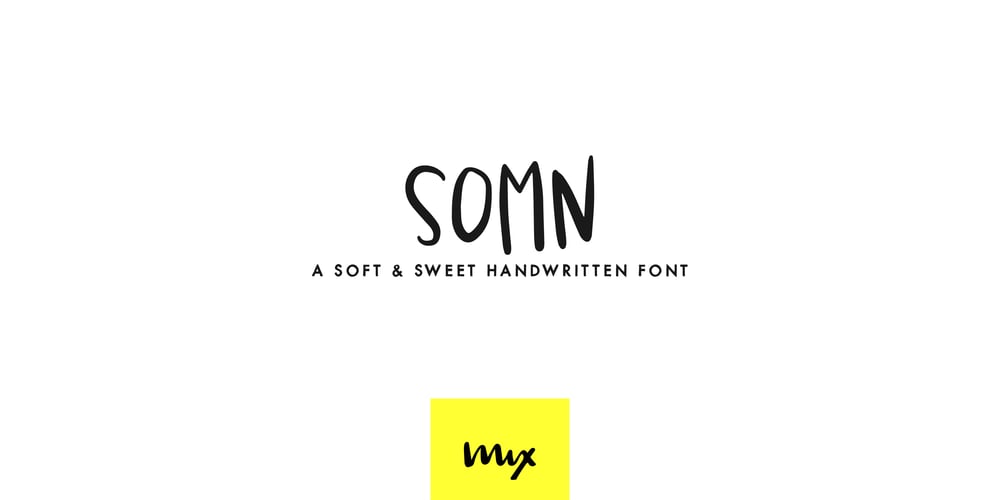
Somn
Somn font
Somn Font Family was designed by Mikko Sumulong and published by Mix Fonts. Somn contains 1 styles and family package options. Mix Somn is the perfect font for adding charm to your children’s products. Its thin, tall, and dainty style is both stylish and legible, making it perfect for labeling baby clothes, toys, and other items. The digitally handwritten sans serif font was created with an iPad Pro and Apple Pencil, using the Poppy Brush from my Procreate Brush Bundle. Its delicate strokes and sweet, soft appearance make it the perfect choice for any project you might find in your little bundle of joy’s nursery. Mix Somn includes the following characters: ABCDEFGHIJKLMNOPQRSTUVWXYZ abcdefghijklmnopqrstuvwxyz 0123456789 !@$#%^&*() `~♥M• ÷+=[]:;’”,.|/?{}<>“”‘’-–—_…©®™«»°¡¿₱¢€£¥ ÁÀÂÄÃÅĂĄÆĆČÇÐÉÈÊËĘÍÌÎÏŁŃÑÓÒÔÖÕØŐŒŚŠȘȚÚÙÛÜŰÝŸŹŽŻÞ áàâäãåăąæćčçðéèêëęíìîïłńñóòôöõøőœśšșțúùûüűýÿźžżþ